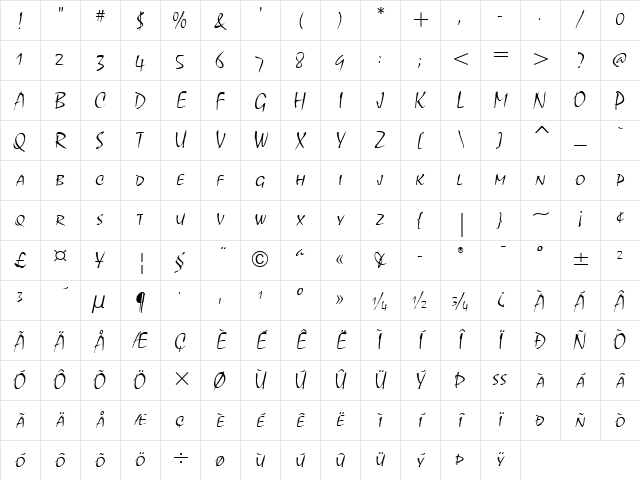
Mistral SC ITC Light
Foundry: International Typeface Corporation
Design Context for Mistral SC ITC
Mistral SC ITC is a composed and adaptable typeface that performs quietly and consistently across a wide range of design contexts. Its slender proportions lend an understated elegance to any composition.